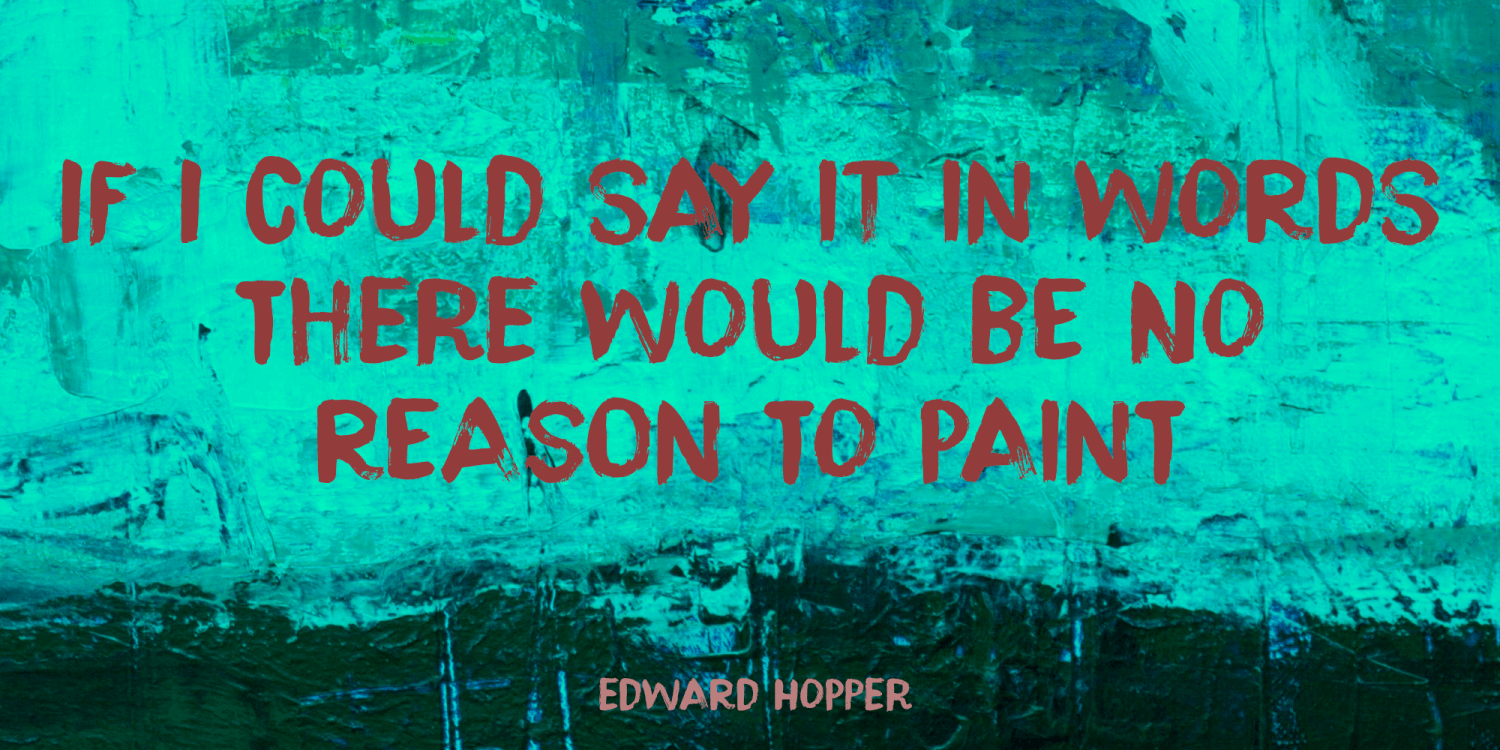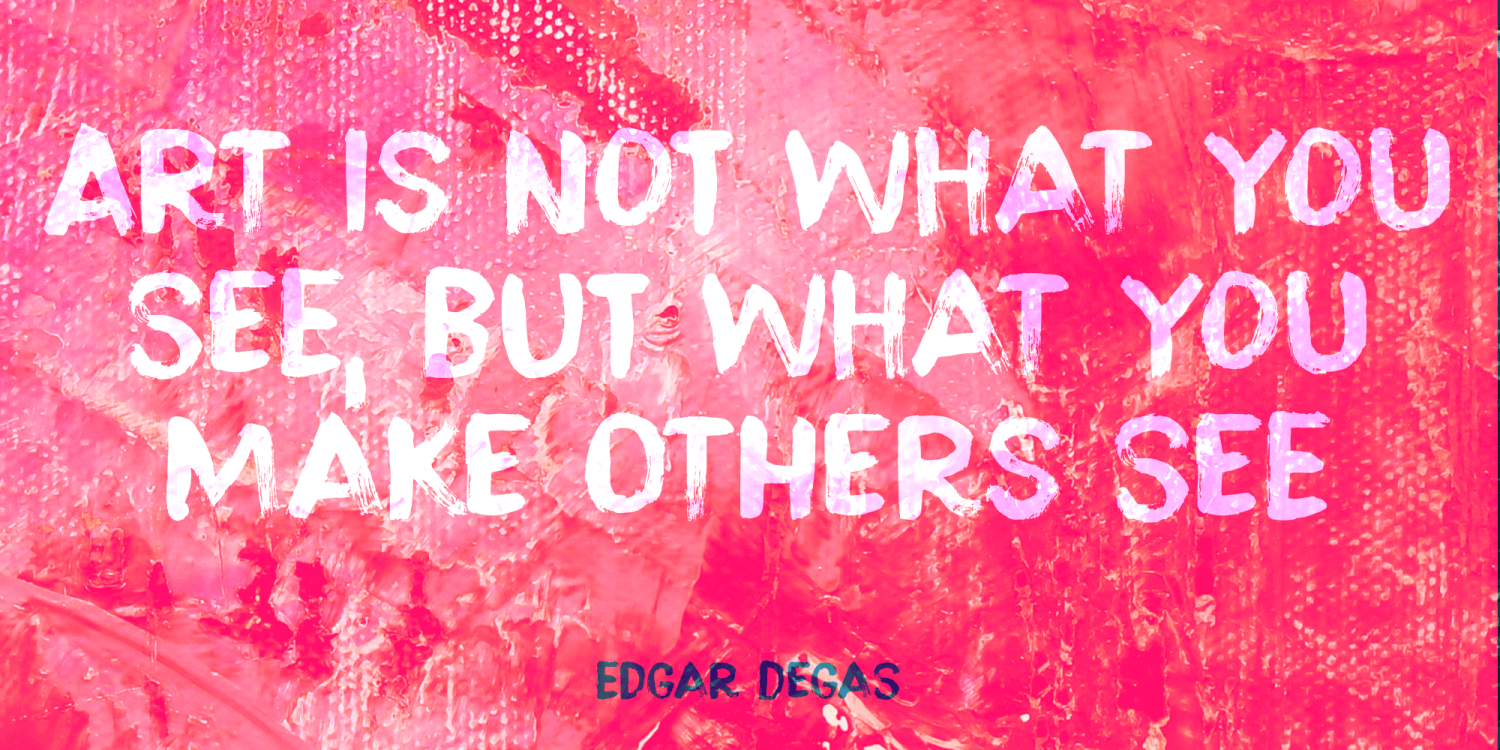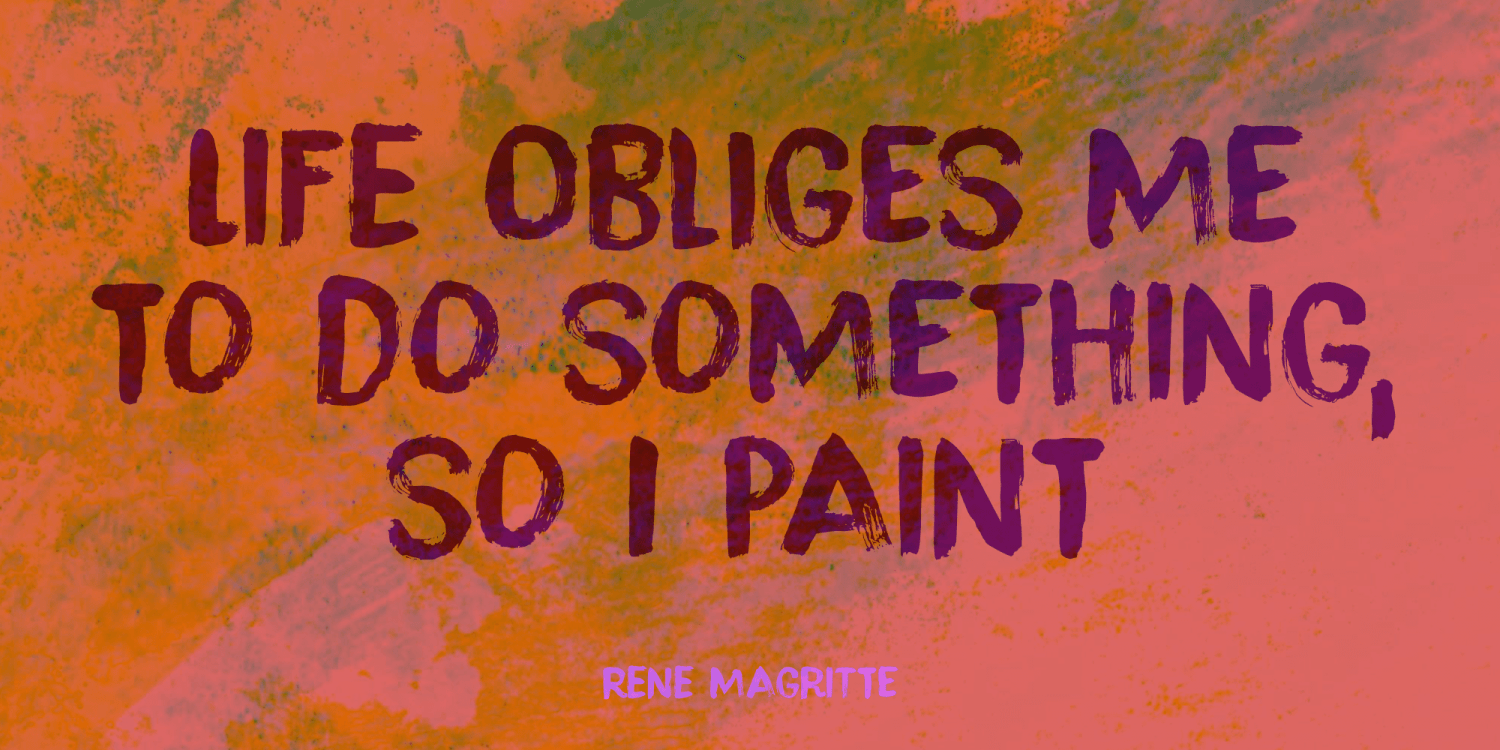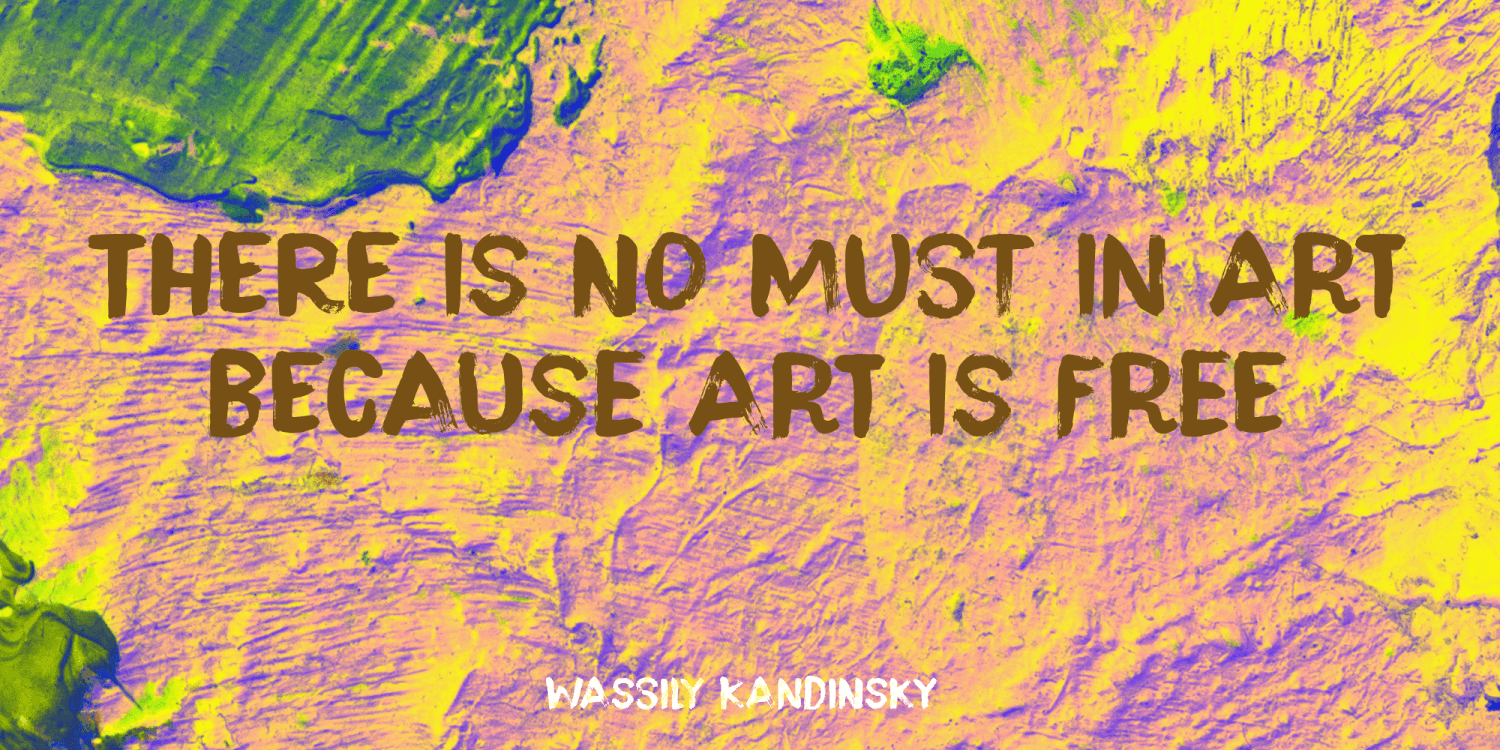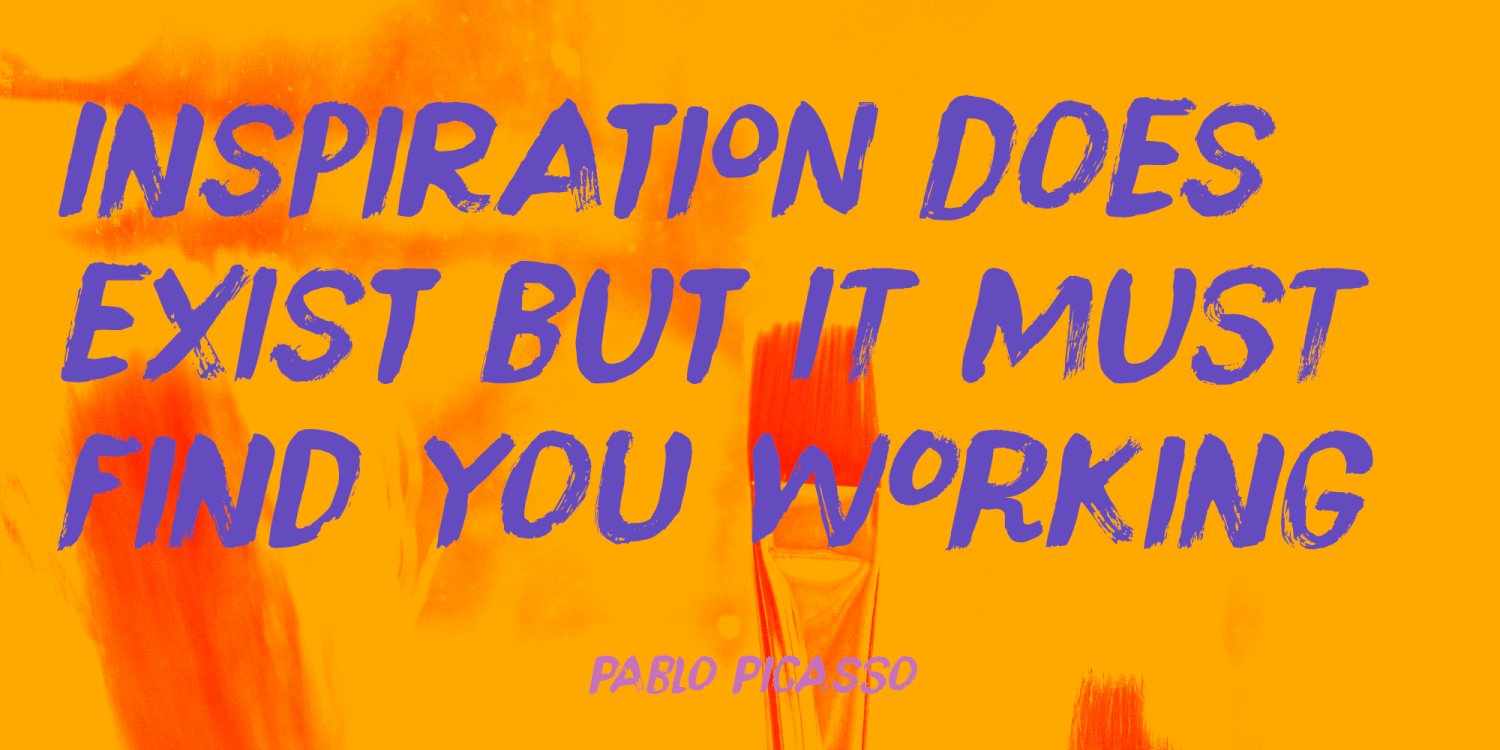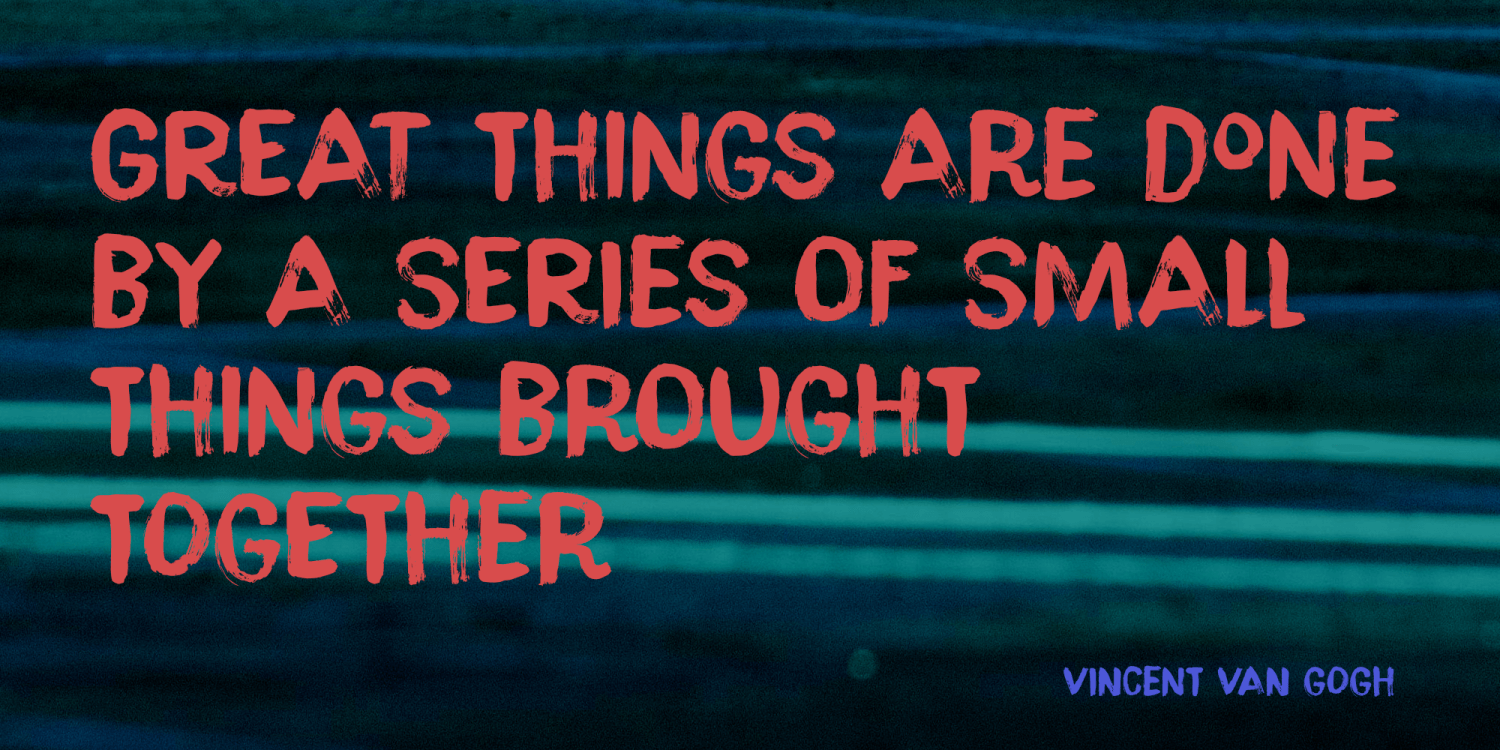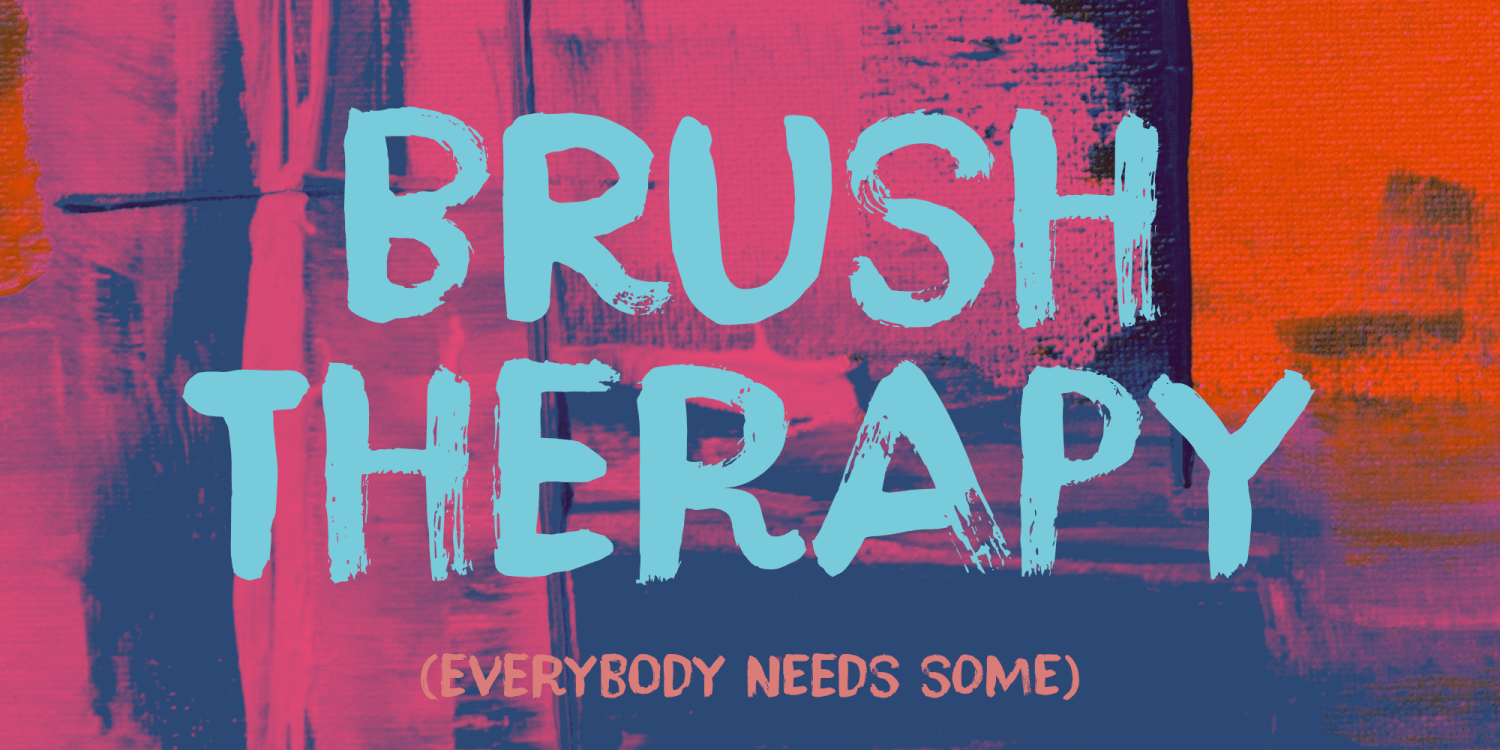
Brush Therapy
About Brush Therapy
I really enjoy making brush fonts. For me, it’s a kind of therapy, because drawing the glyphs keeps me focused. Besides that, the process of brushing glyphs onto paper can be very rewarding, or could mean half a day wasted when it didn’t go…